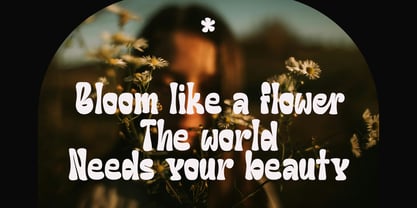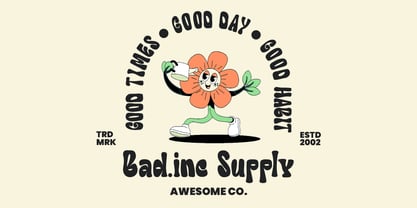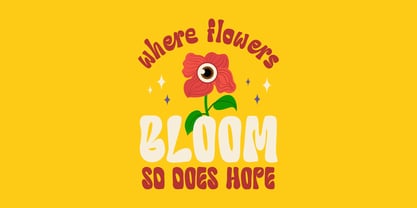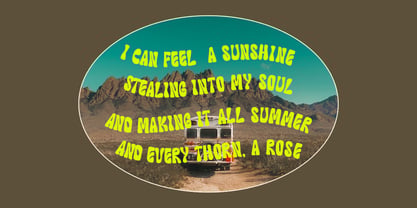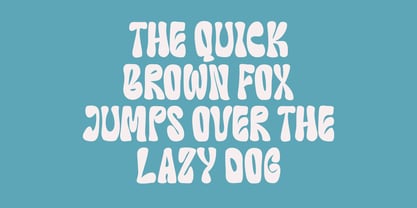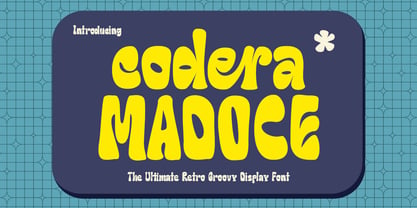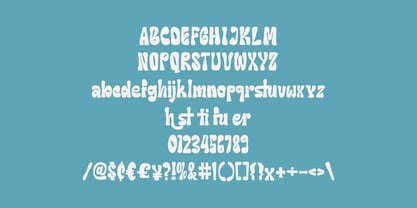
MC Codera Madoce
von Maulana Creative
Die Schriftfamilie MC Codera Madoce wurde von Gilang Maulana entworfen und von Maulana Creative veröffentlicht. MC Codera Madoce enthält 1 Stile. Mehr über diese Familie
Step back into the vibrant, soulful era of the 1970s with Codera Madoce, a font designed to bring rhythm and personality to your creative projects. This display font captures the essence of "flower power" and psychedelic culture, blending thick, organic curves with a modern, playful twist. Whether you are designing a nostalgic logo, a bold concert poster, or eye-catching social media graphics, Codera Madoce provides an instant vintage vibe that feels fresh and trendy. Its unique wavy stems and "bubbly" appearance make it perfect for brands that want to stand out with warmth and approachability.
Designer: Gilang Maulana
Foundry: Maulana Creative